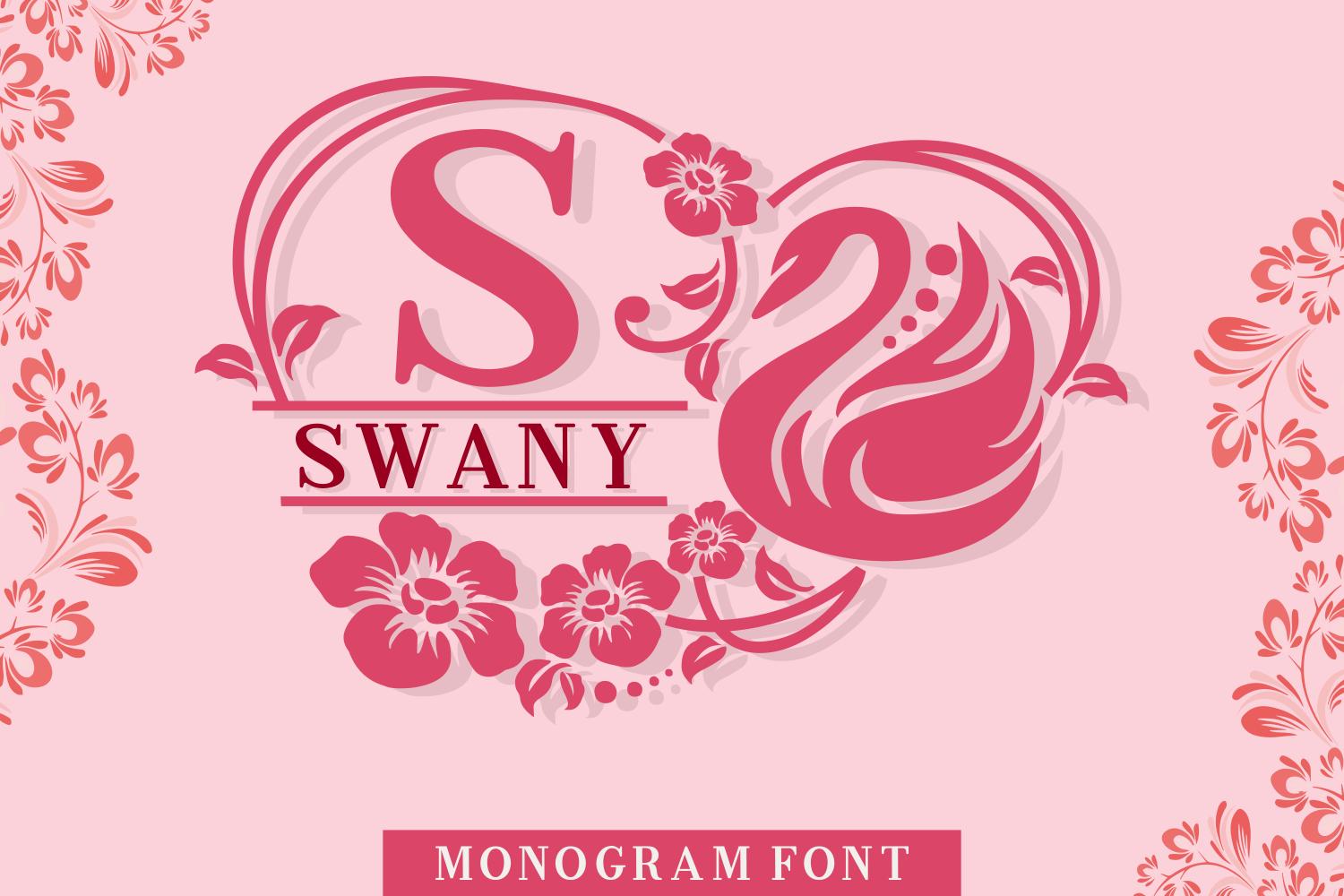
Swany is a dainty and unique decorative font. Add this romantic and lovely looking font to each of your love letters, wedding invitations or favorite design ideas, and you will be astounded by the outcome.